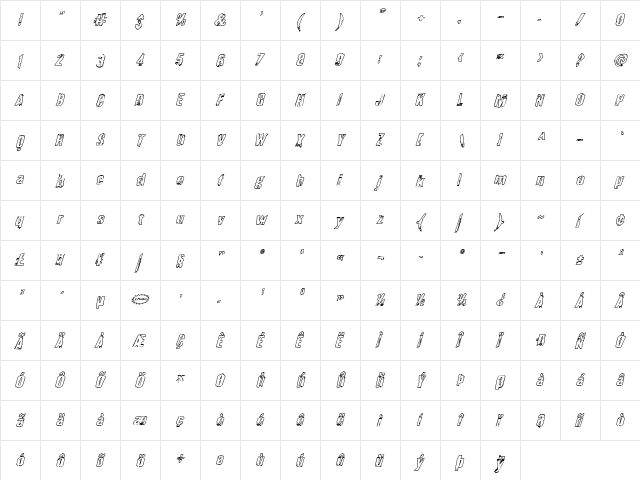
Quarrystone Outline Italic Italic
Design Context for Quarrystone Outline Italic Typeface
Quarrystone Outline Italic brings ornamental detail and strong personality to headlines and identities, where visual impact matters more than quiet functionality. Its italic angle brings a sense of urgency and motion to the letterforms.
Font Pairing: Pair with a clean neutral sans-serif for body copy to let Quarrystone Outline Italic's character lead without overwhelming the composition.
Pro Tip: Treat Quarrystone Outline Italic as the centrepiece of your typographic hierarchy. One strong heading set in a decorative face can carry an entire layout.